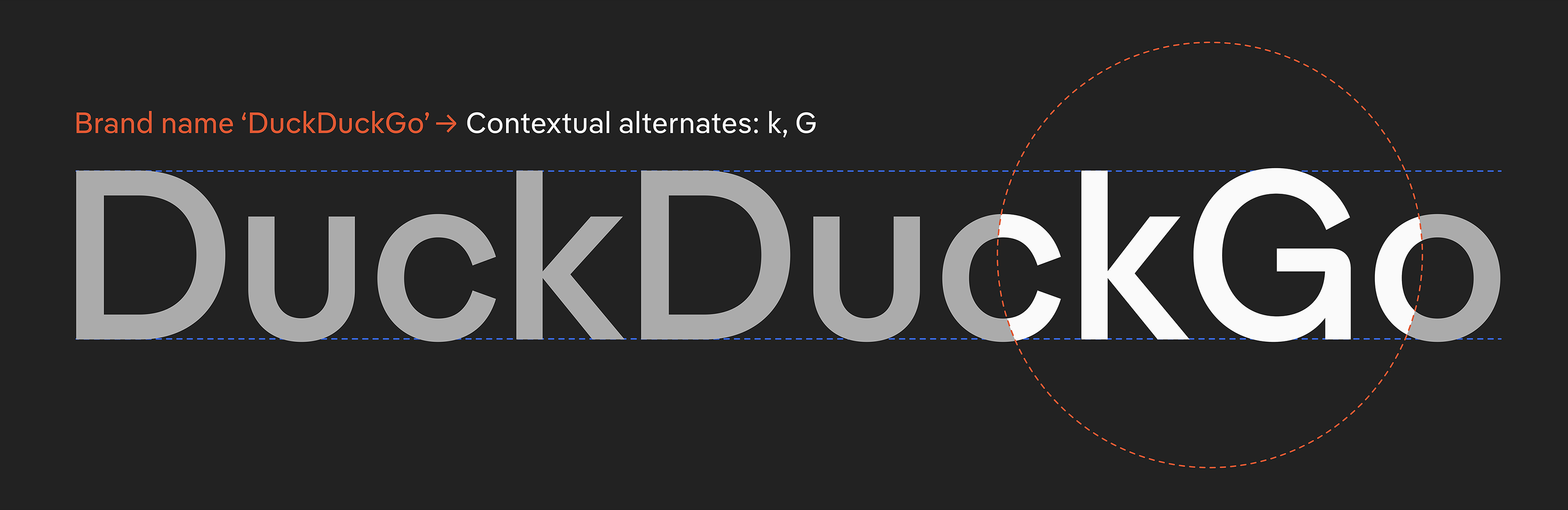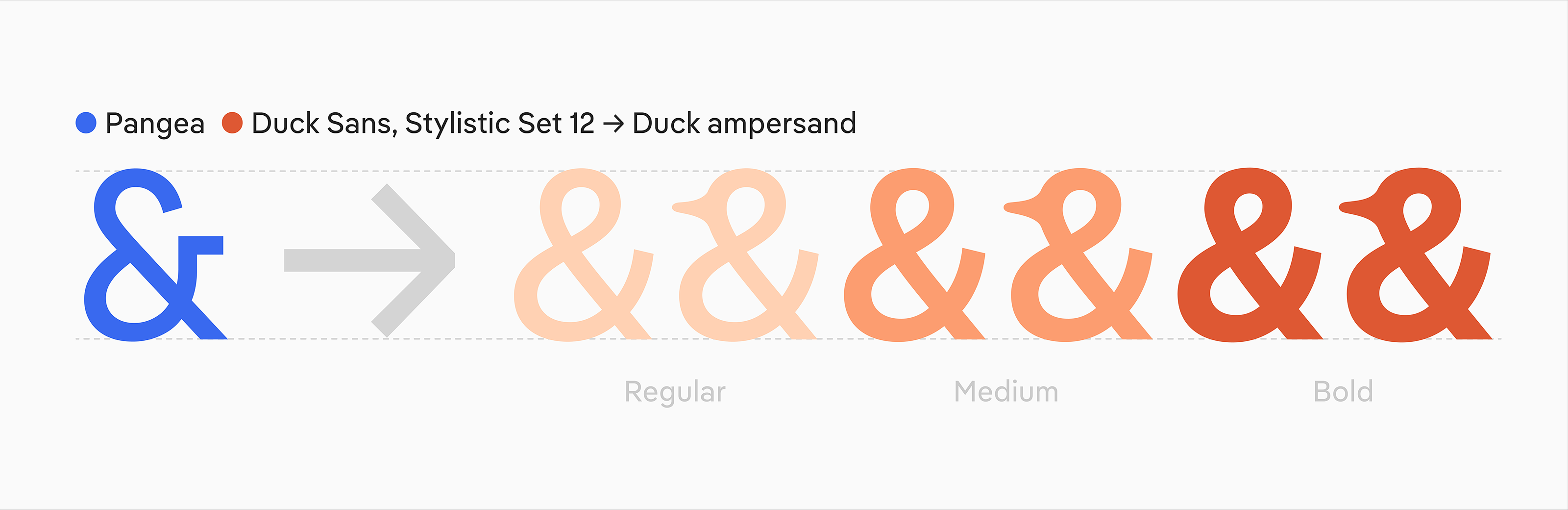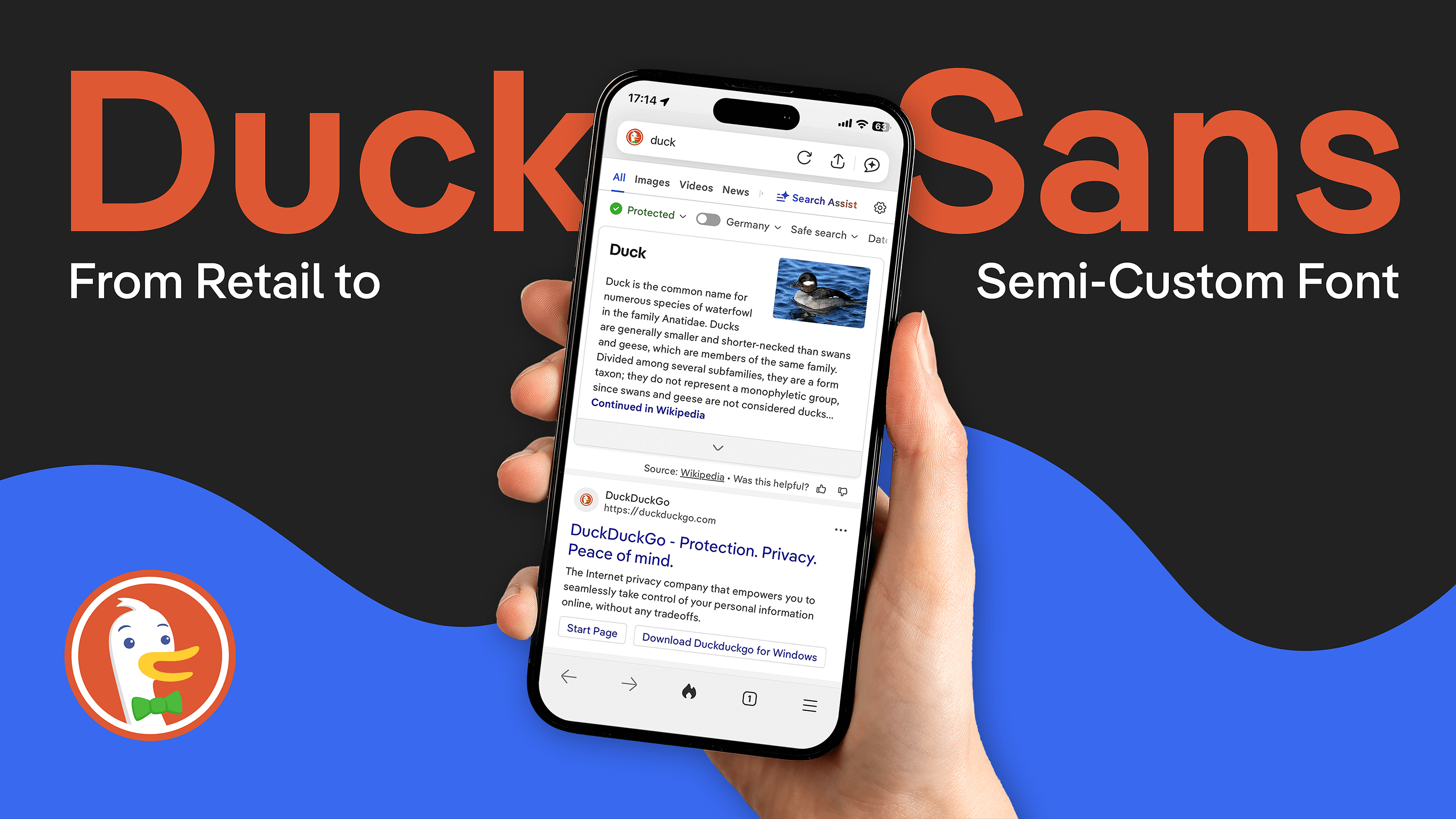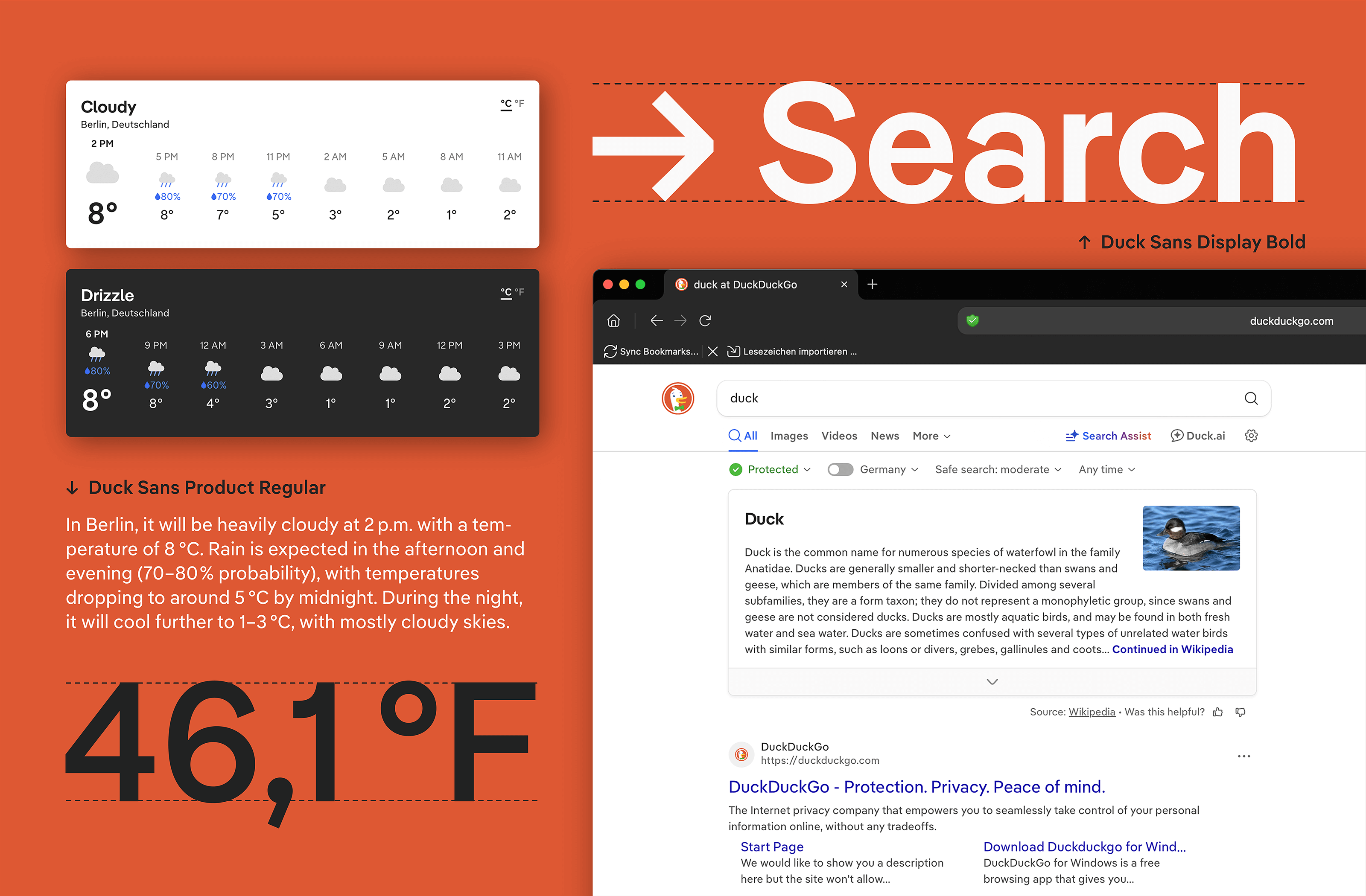
From small start-ups and individuals to global branding giants, it’s always a delight to see our typefaces in action, helping brands to stand out from the crowd.
Back in Spring 2025, we were approached by one of our favorite brands, DuckDuckGo, as they wanted a customized version of Pangea to use as the default font for their search engine.
As long-time admirers of DuckDuckGo values, we leapt at the chance to work them. Unlike other search engines, DuckDuckGo doesn’t collect personal information and it displays the same results for everyone.
Designer Christoph Koeberlin and project manager Ivo Gabrowitsch worked closely with the DuckDuckGo team to turn Pangea into the semi-custom font ‘Duck Sans’. Over the course of the collaboration, numerous adjustments and stylistic changes were made. The size of all glyphs were reduced by 3% and all the file sizes were compressed as much as possible. An array of unique tweaks were made to a number of characters, including making the ‘G’ more distinct, the ‘&’ closed and creating heavier dots on the I. Extra characters were also added, including a ‘Duck Ampersand’, an extra M, a special G and matching k for the logo and the numerals were redrawn and tweaked to make them more ‘grotesque’.
Team work really makes the dream work and Duck Sans is an excellent example of how we can tweak and adjust an existing Fontwerk design to the needs of the client. As the project came to a conclusion, we were happy to receive this feedback from Nirzar Pangarkar, Director Product Design for DuckDuckGo.
“The team at Fontwerk operate at the unique intersection of Art, Design, and more importantly, Engineering—a combination that’s rare to find. They have a nuanced understanding of what it means to design modern typography at scale for consumer products with countless use case scenarios across a wide gamut of mediums—from niche browser specs to overhead billboards. In my experience, working with passionate type nerds who genuinely love what they do made the entire collaboration that much more enjoyable.”